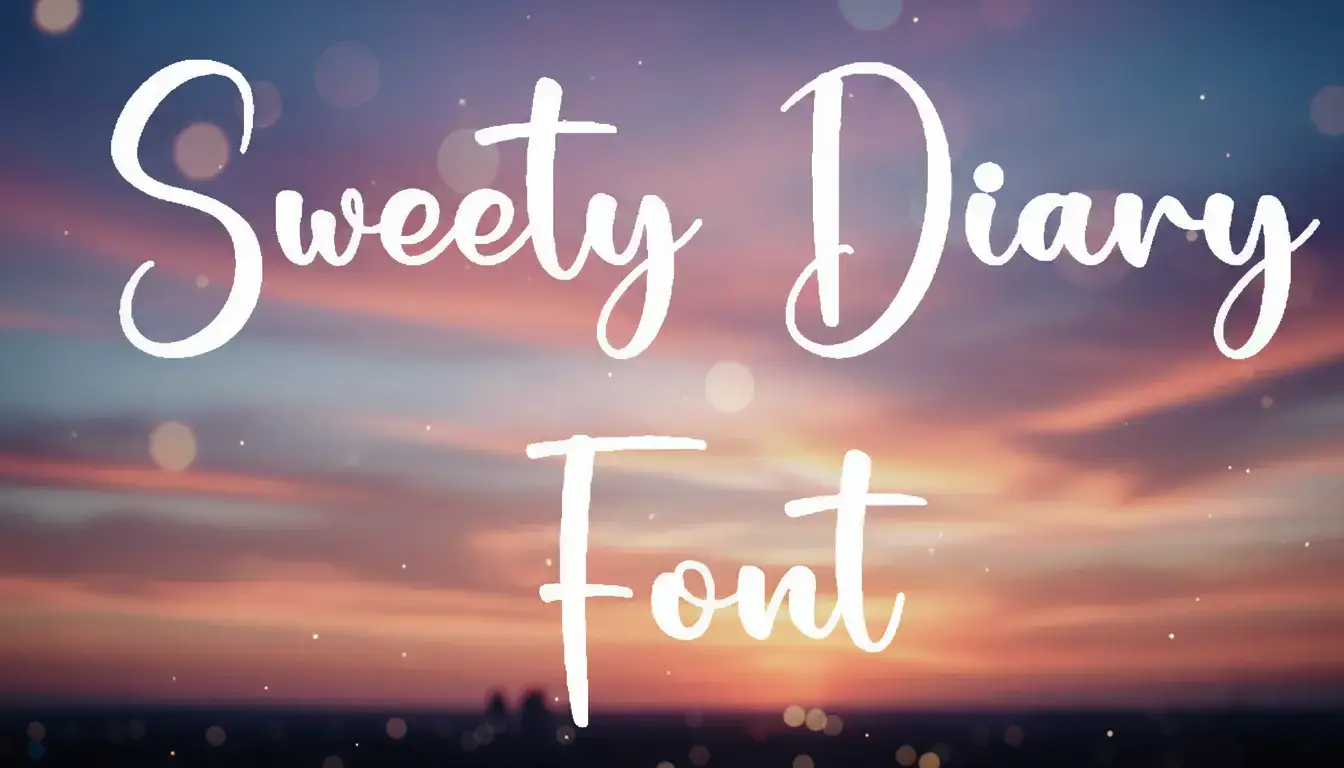
Sweety Diary Font
Sweety Diary Font Details
- Designer: Risma Ramawi
- Publisher: Nirmala Creative
- Glyphs: 126
What You Can Type With Sweety Diary
You get every letter from A to Z in both cases and all the numbers from 0 to 9, which means Sweety Diary can handle full sentences, dates and prices. Everyday marks like &, !, ? and @ are there too. Thanks to its accented letters, it also works for Spanish, French, Portuguese and Italian, not just English.
Where Sweety Diary Works Best
Think of Sweety Diary for wedding invitations, logos and signature-style headings. Script fonts read best in short bursts, so keep it to names, titles and one-line quotes. Skip all caps: script capitals are drawn to start a word, not to fill one.
Does Sweety Diary support accented letters?
Yes. Sweety Diary includes the accented letters needed for Spanish, French, Portuguese and Italian, so it works for more than just English.